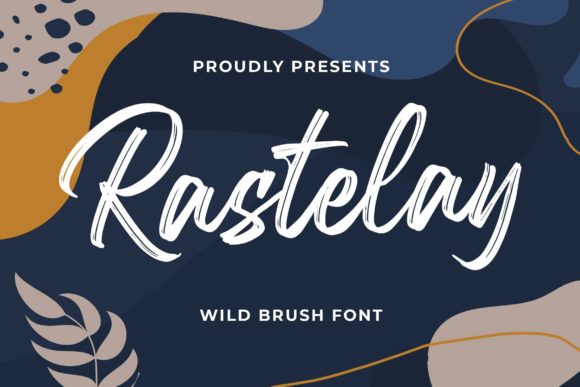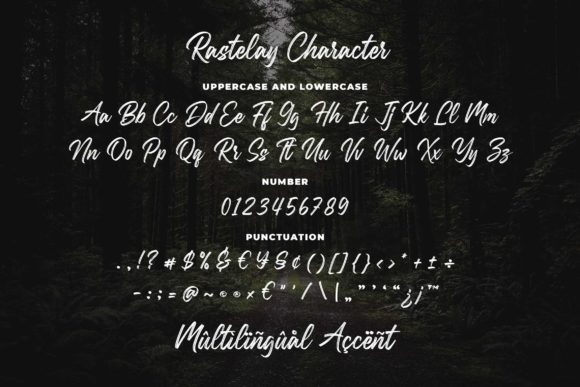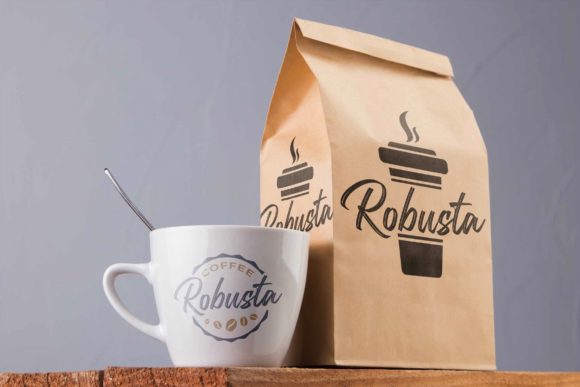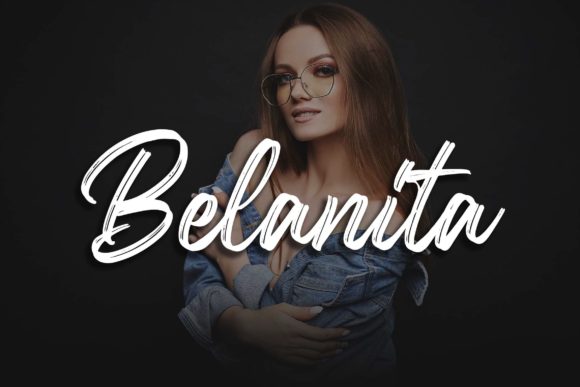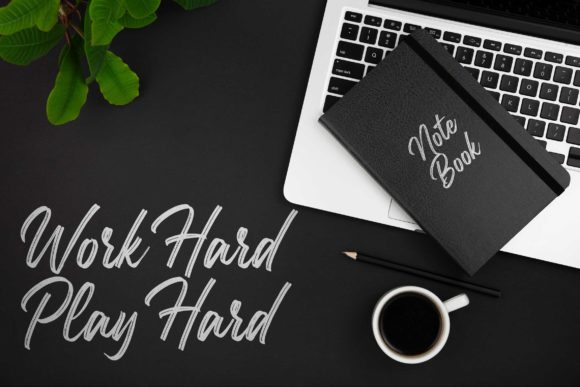
Rastelay Font
About Rastelay Font
Rastelay is a brush handwritten font. It has a stylish look and it will look great in greeting cards, social media posts, book covers and much more!